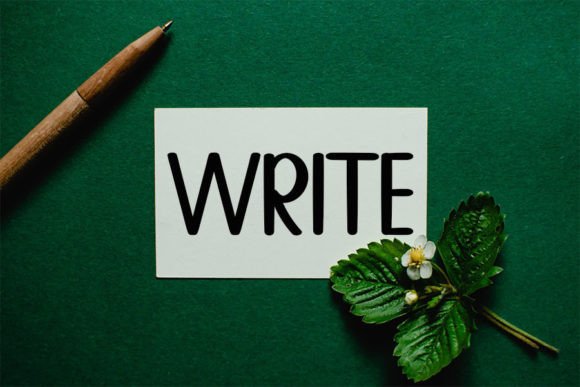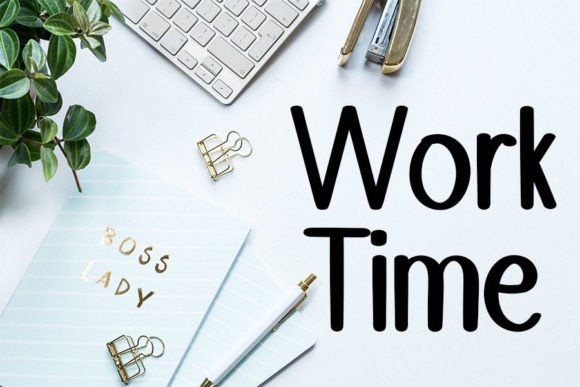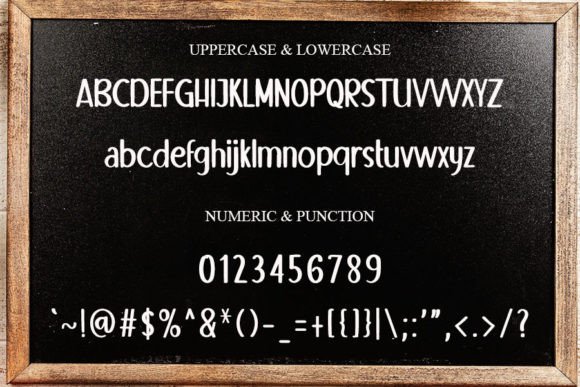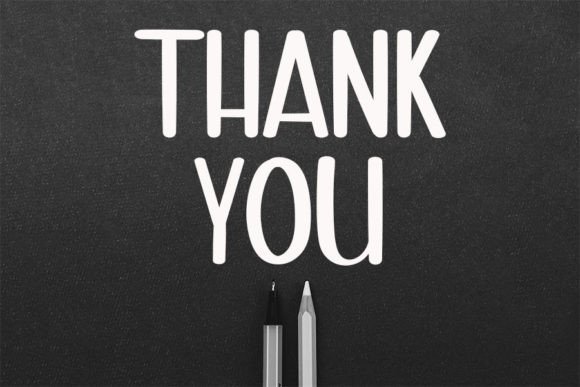
Austin Font: The Magical Handwritten Font for Elegant Designs
Austin Font is a beautiful, handwritten font that has been carefully crafted with a touch of elegance. Its clean and quirky design makes it the perfect fit for a wide range of creative projects, from logos and branding to social media graphics and crafty DIY projects. In this article, we’ll take a closer look at the Austin Font, its features, and how you can use it to elevate your designs.
The Story Behind Austin Font
Austin Font is a unique and creative typeface that has been designed to bring a touch of magic to your designs. Its creator, [designer’s name], is a talented typographer who has poured their heart and soul into crafting a font that is both elegant and playful. With a keen eye for detail, they have carefully crafted each letter to ensure that it is not only aesthetically pleasing but also highly legible.
Key Features of Austin Font
So, what makes Austin Font so special? Here are some of its key features:
- Handwritten style: Austin Font has a beautiful, handwritten style that gives it a personal and unique touch.
- Elegant and clean: The font has a clean and elegant design that makes it perfect for a wide range of creative projects.
- Quirky and playful: Austin Font has a quirky and playful side that makes it ideal for crafty DIY projects and social media graphics.
- Highly legible: Despite its creative design, Austin Font is highly legible, making it perfect for use in body text and other applications where readability is key.
Use Cases for Austin Font
Austin Font is a versatile typeface that can be used in a wide range of creative projects. Here are some ideas to get you started:
- Logos and branding: Austin Font is perfect for creating unique and memorable logos and branding materials.
- Social media graphics: The font’s quirky and playful design makes it ideal for social media graphics, such as Facebook posts, Instagram stories, and Twitter headers.
- Crafty DIY projects: Austin Font is a great choice for crafty DIY projects, such as handmade cards, gift tags, and scrapbooking.
- Web design: The font’s clean and elegant design makes it perfect for use in web design, including website headers, menus, and body text.
Tips for Using Austin Font
Here are some tips for getting the most out of Austin Font:
- Experiment with different sizes: Austin Font looks great in a variety of sizes, from large headings to smaller body text.
- Combine with other fonts: Try pairing Austin Font with other fonts to create a unique and interesting design.
- Use it for headlines and titles: Austin Font is perfect for use in headlines and titles, where its elegant and quirky design can really shine.
Austin Font is a magical handwritten font that is perfect for designers and crafters looking to add a touch of elegance and quirkiness to their designs. With its clean and playful design, it’s ideal for a wide range of creative projects, from logos and branding to social media graphics and crafty DIY projects. Whether you’re a seasoned designer or just starting out, Austin Font is definitely worth checking out.